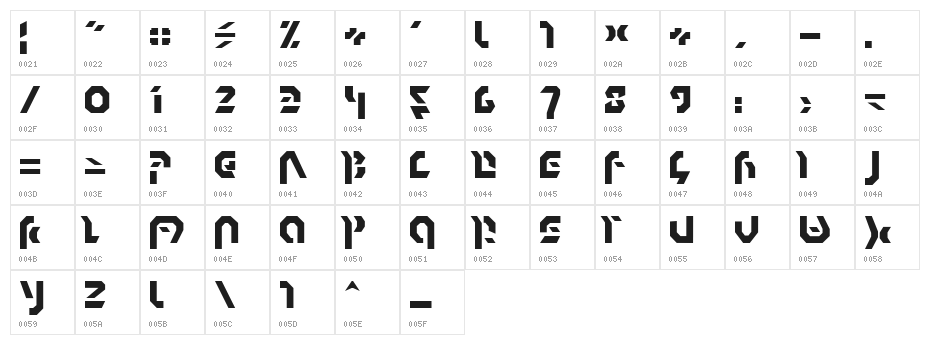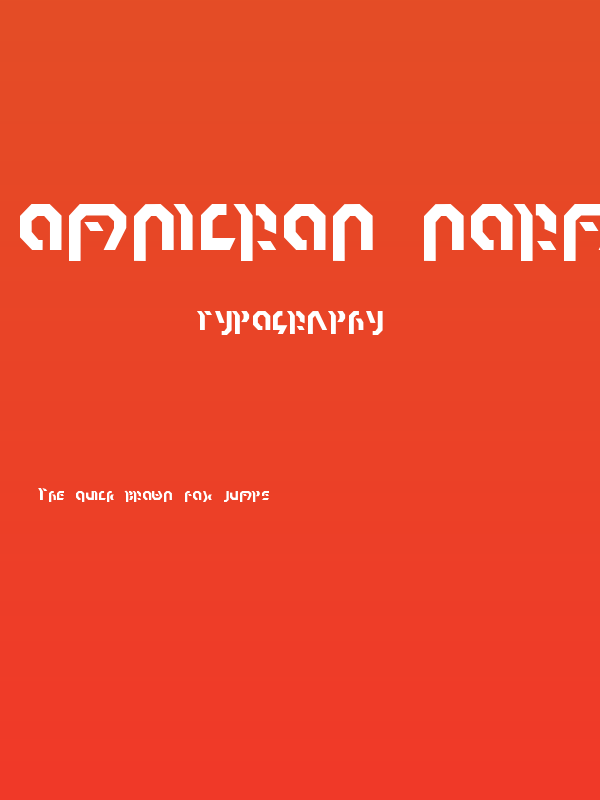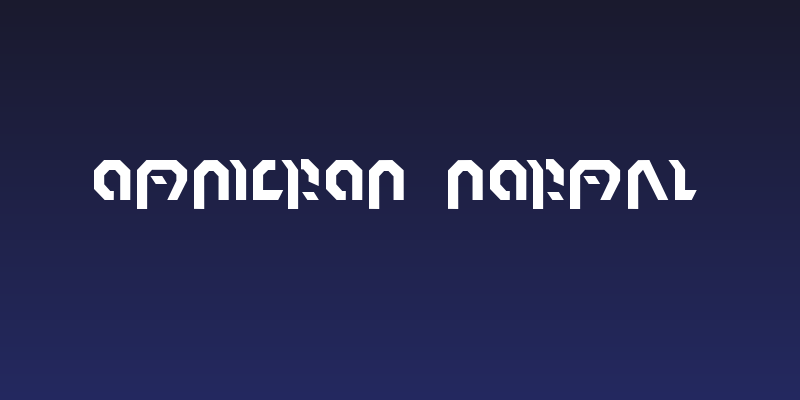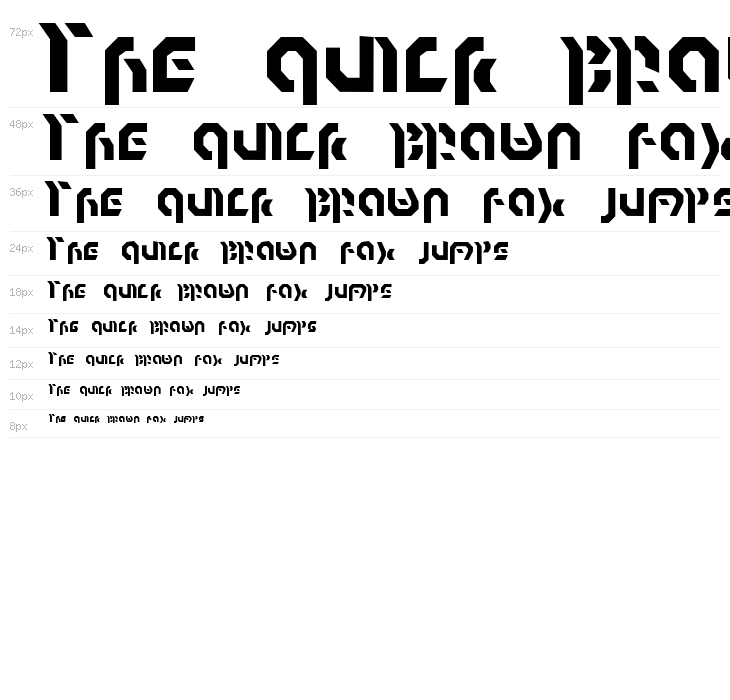
Omnicron Normal Font
Omnicron Normal Description
This font features a bold, geometric design with sharp angles and a futuristic aesthetic. Each character is constructed with a series of straight lines and angular cuts, creating a highly stylized and modern appearance. The uppercase and lowercase letters maintain a consistent style, with a uniform thickness that emphasizes the boldness of the font. Numbers and special characters follow the same design principles, ensuring a cohesive look across all elements. The font's unique structure makes it stand out, ideal for projects that require a strong visual impact.